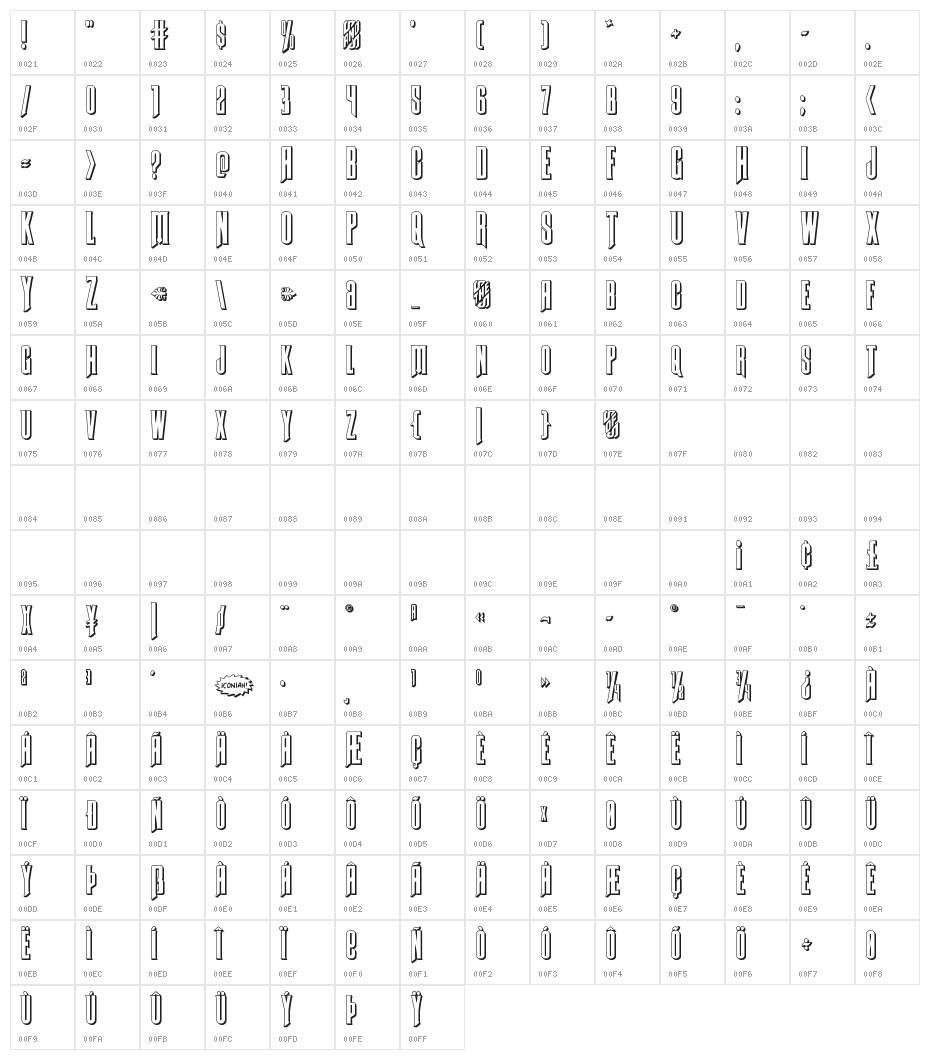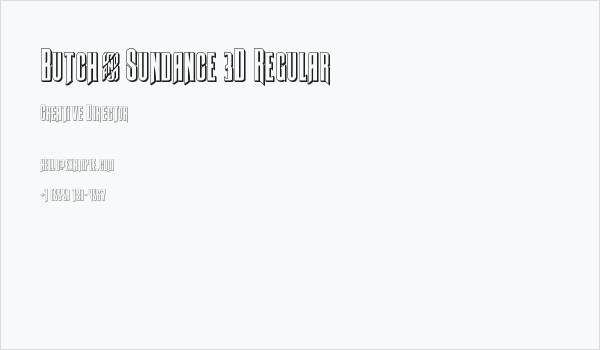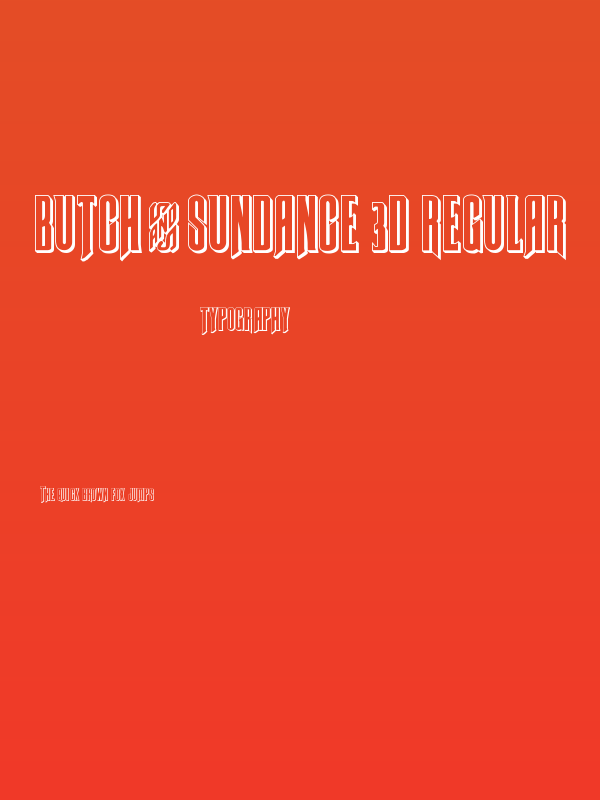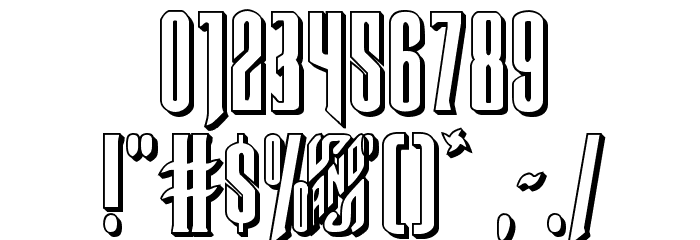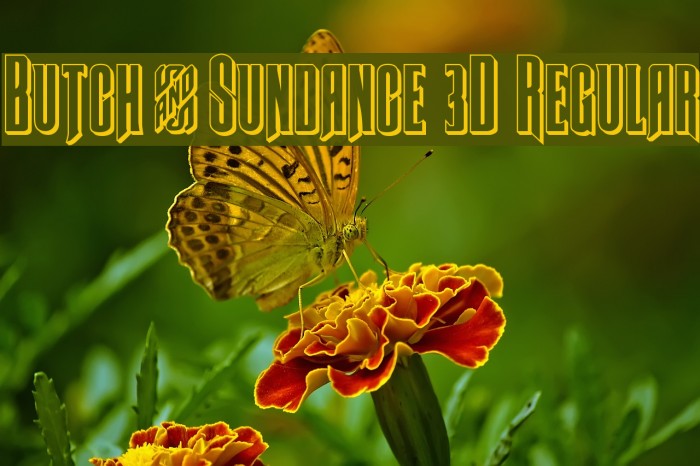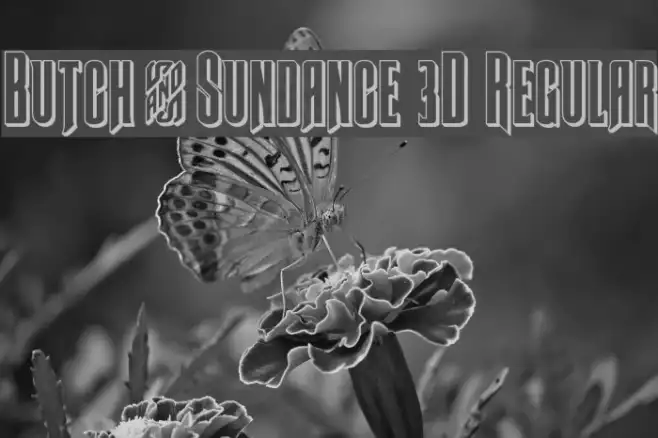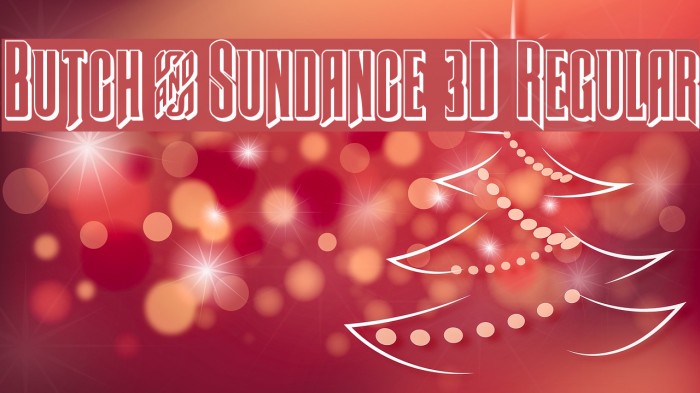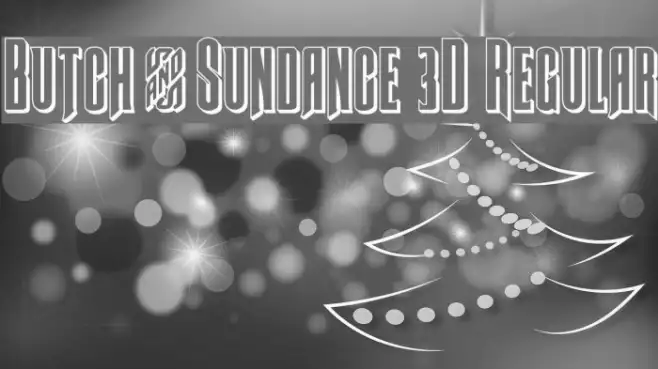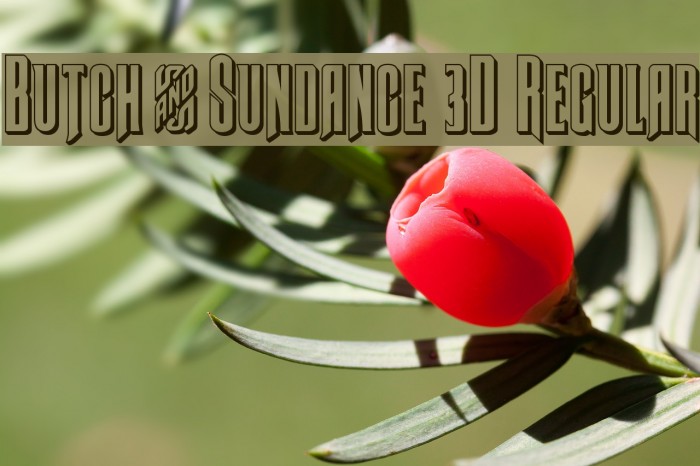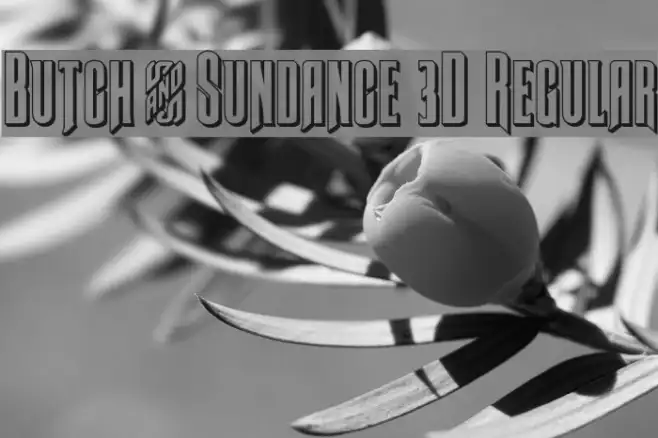
Butch & Sundance 3D Regular Font
Butch & Sundance 3D Regular Description
This font features a bold, three-dimensional style with a strong presence. The characters are tall and narrow, with sharp edges and a shadow effect that gives them a striking, embossed appearance. The uppercase letters are particularly prominent, with a consistent height and width that creates a uniform look. The numbers and special characters maintain the same bold style, ensuring cohesion across all elements. This font's unique 3D effect makes it stand out, ideal for designs that require a dramatic and eye-catching typeface.